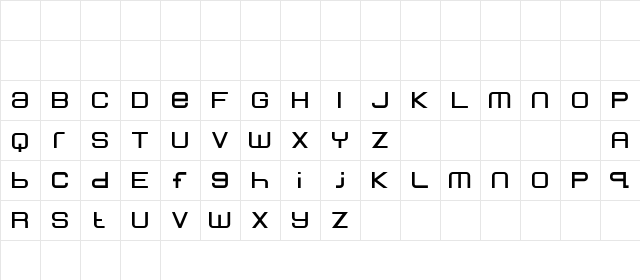
Flotsam Smart Regular
Design Context for Flotsam Smart Typeface
Flotsam Smart takes a measured approach to typography — its balanced proportions and neutral character make it a reliable workhorse for both digital and print work.